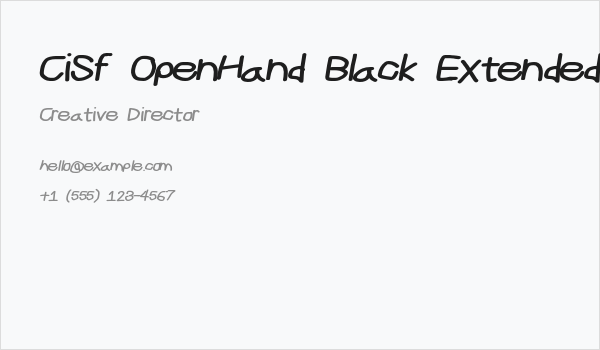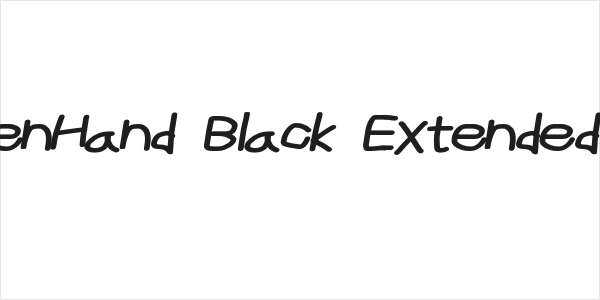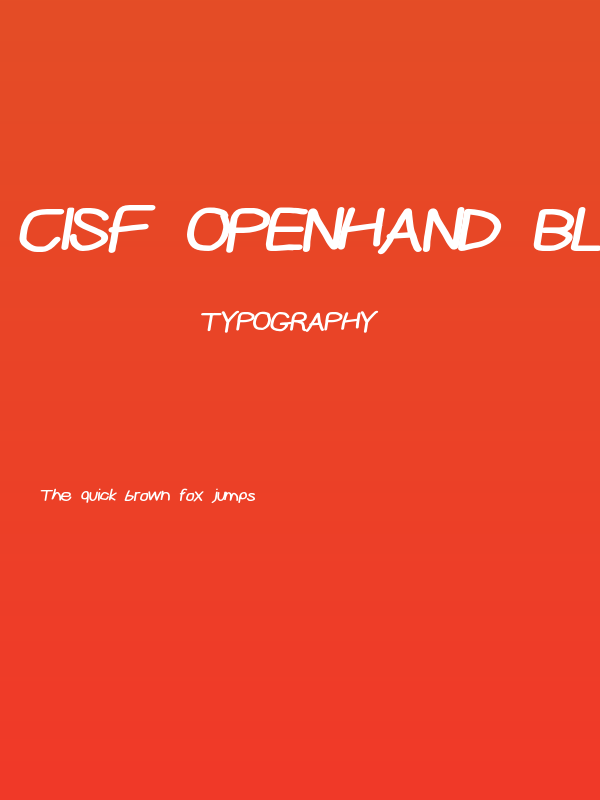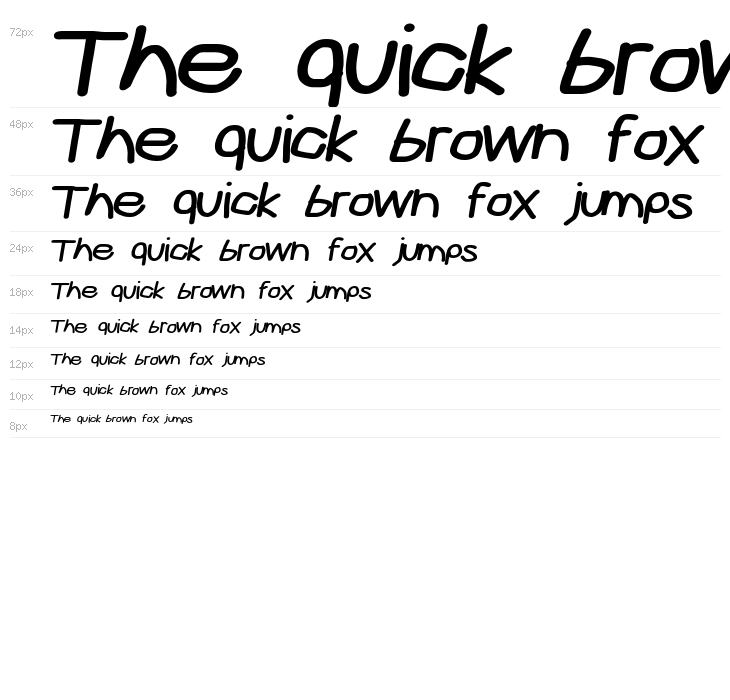
CiSf OpenHand Black Extended Oblique Font
CiSf OpenHand Black Extended Oblique Description
This font features a playful and casual handwritten style with an oblique slant, giving it a dynamic and informal appearance. The characters are bold and extended, providing a strong presence on the page. The strokes are consistent in thickness, offering a medium contrast that enhances readability while maintaining a relaxed aesthetic. The overall design is approachable and friendly, making it suitable for projects that require a personal touch. The spacing between characters is normal, ensuring clarity and legibility across various sizes.
| Use Case | Headlines, Informal text, Branding |
| Proposed Projects | Ideal for greeting cards, children's books, informal branding, and social media graphics. |